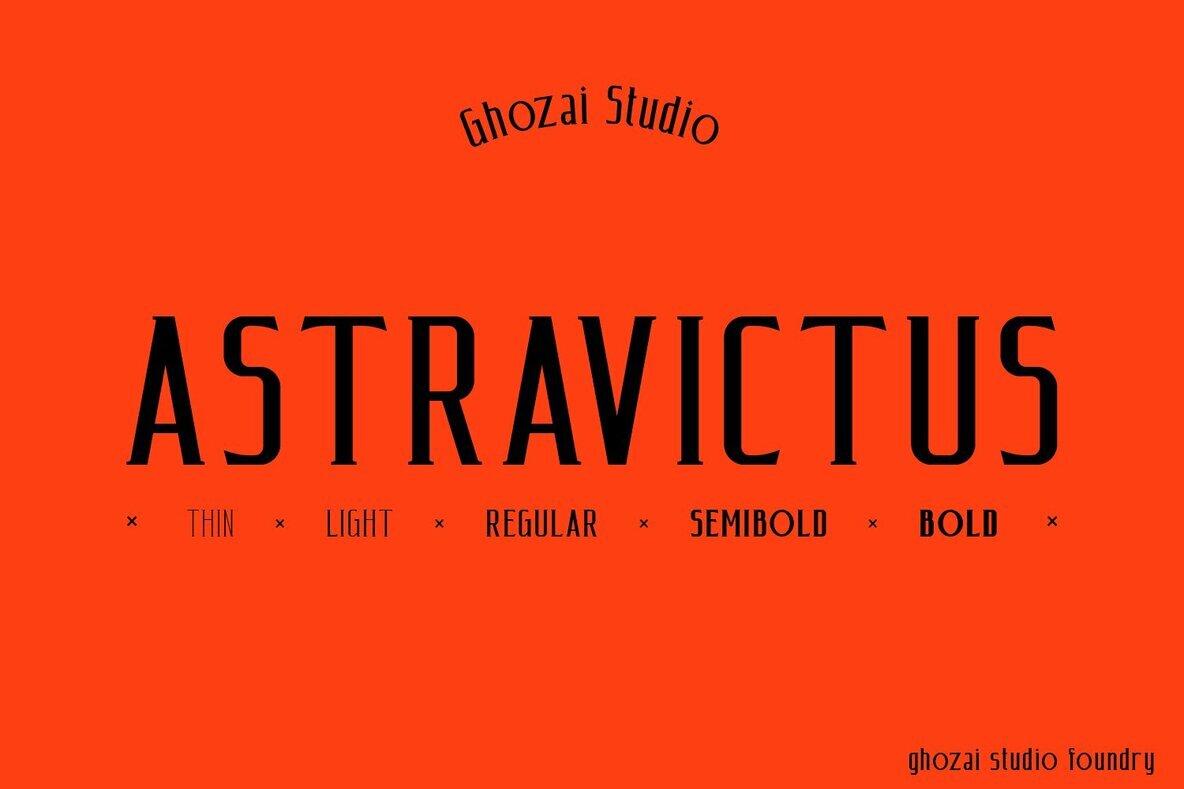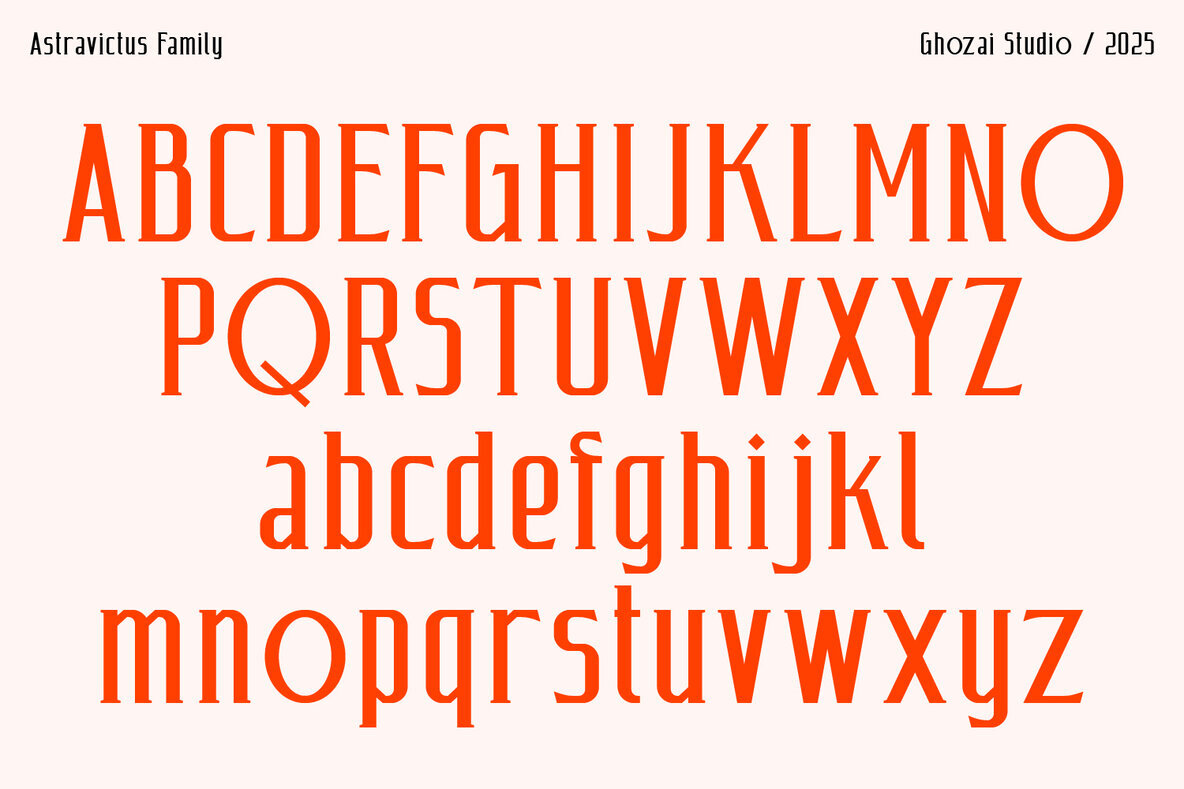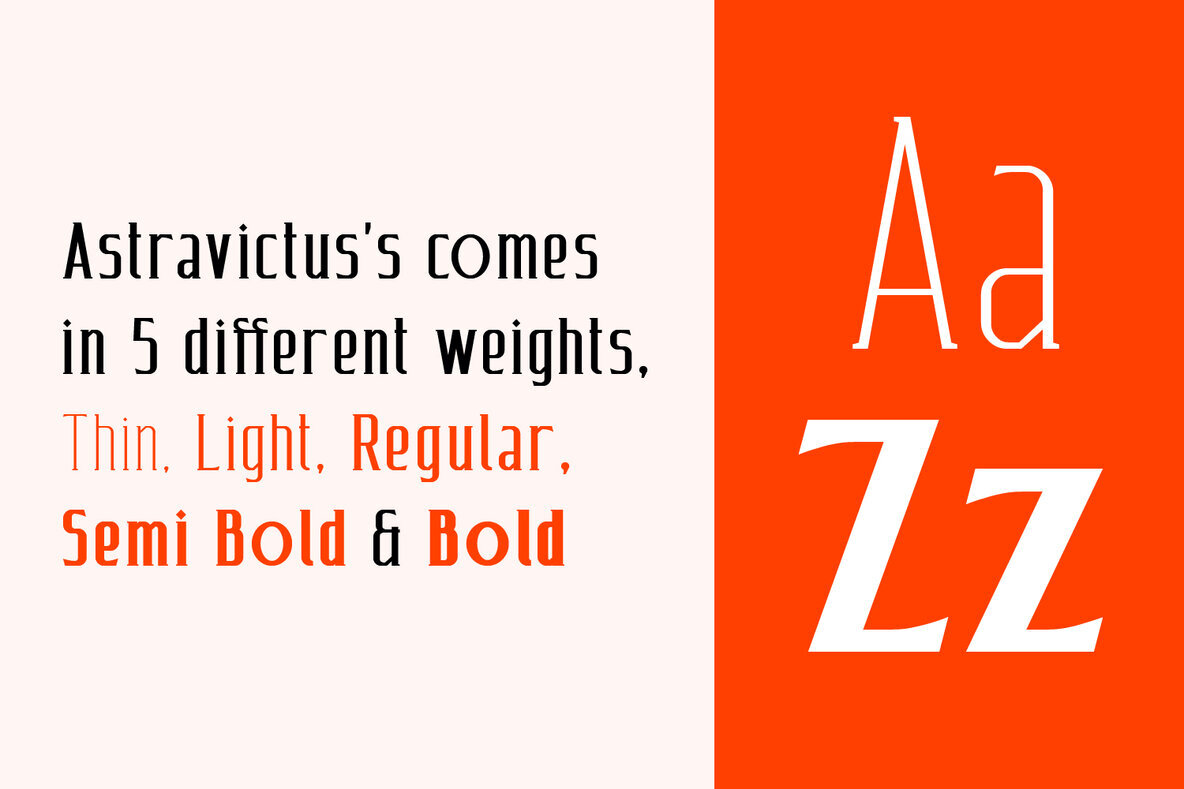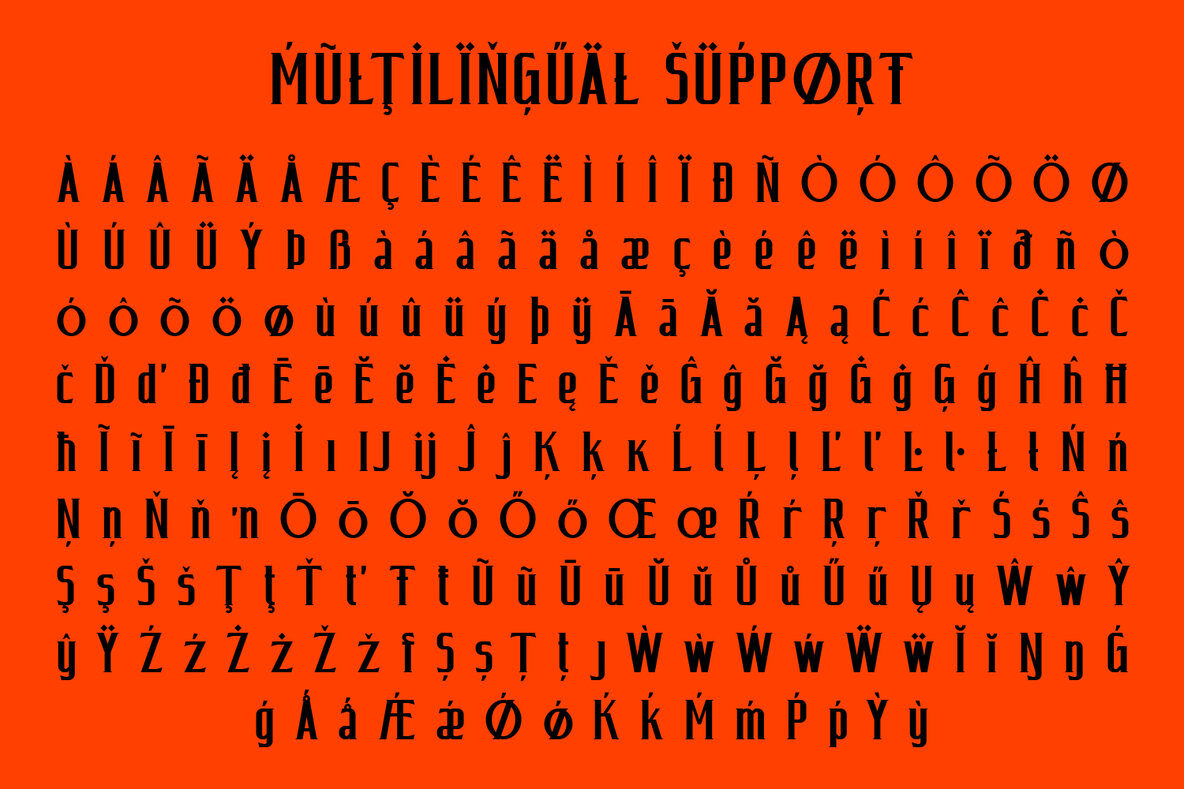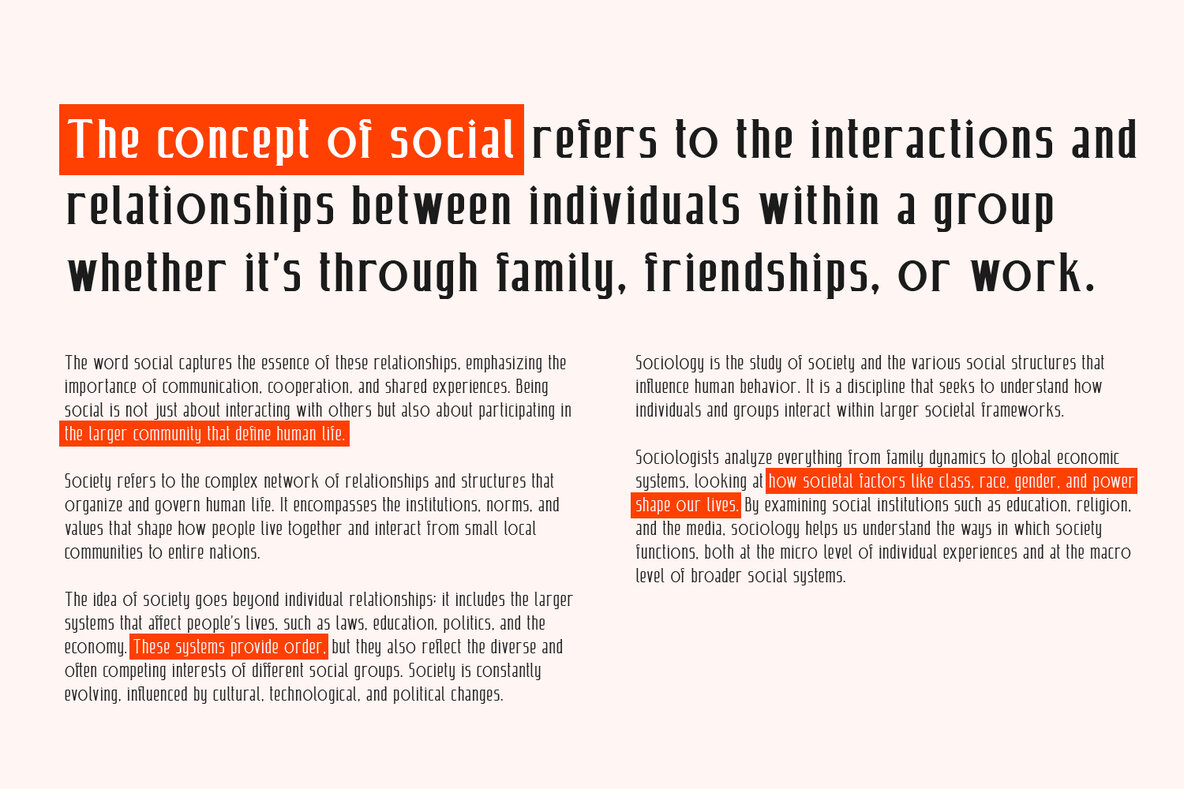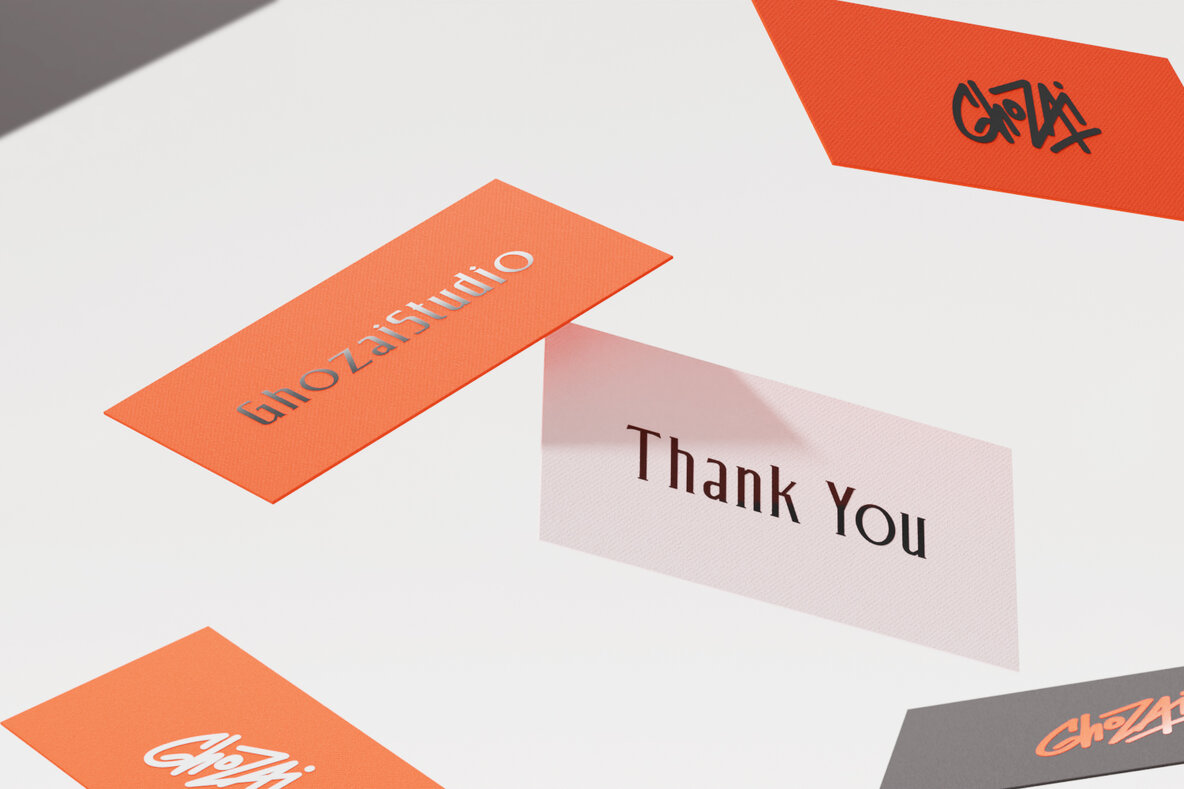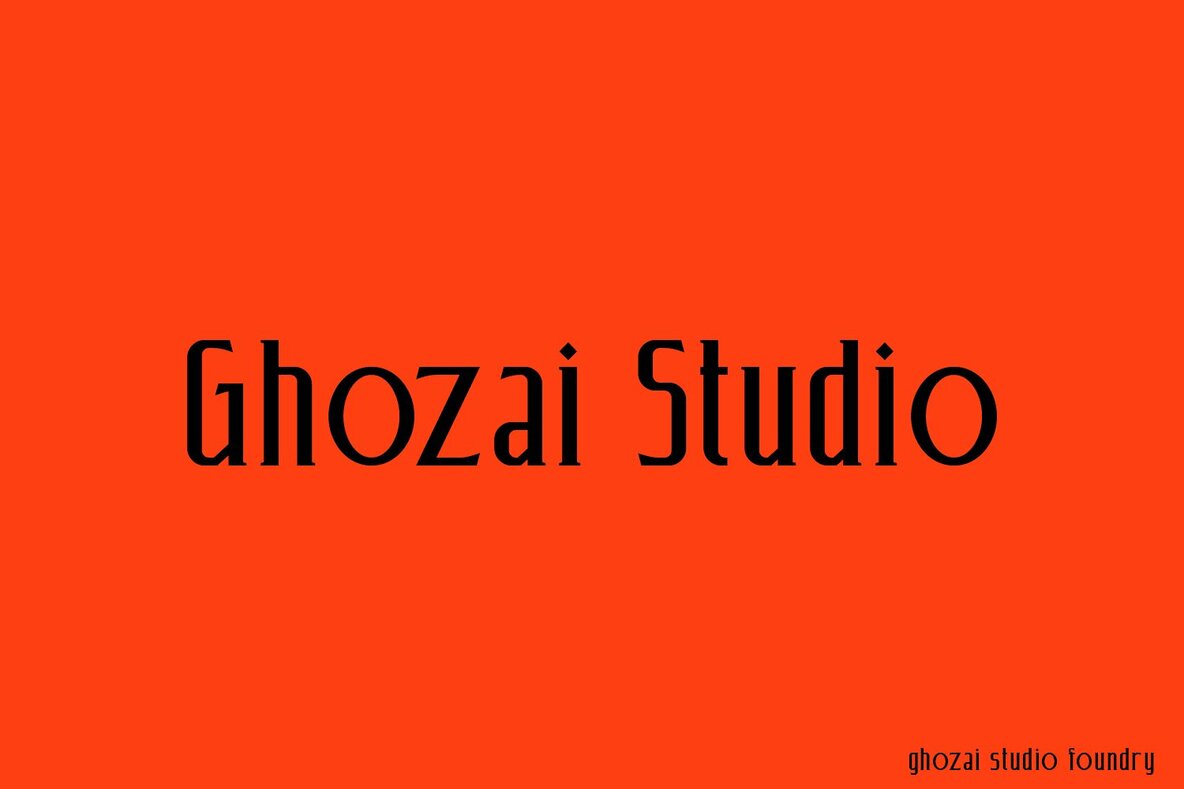
Astravictus Font
Astravictus is a font family that features 5 weights, ranging from Thin to Bold. With a wide variety of weights, OpenType features, and multilingual glyph support, Astravictus ensures versatility across different languages and design needs. Its sleek, modern design makes it ideal for a variety of applications, including display, branding, signage, and more. Whether creating impactful headlines, distinctive logos, or clear signage, Astravictus delivers both style and functionality. Its flexibility allows it to adapt to different design styles, making it the perfect choice for any project that requires a bold and contemporary touch.